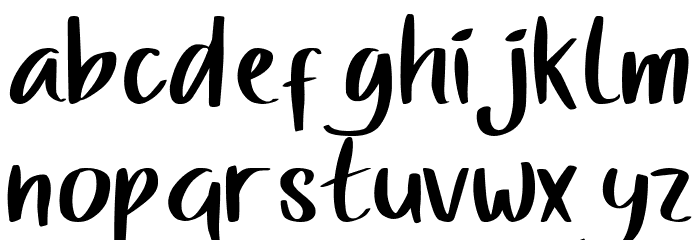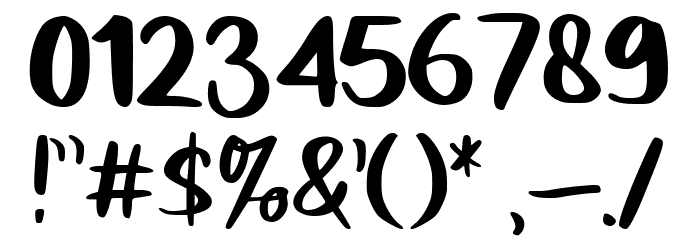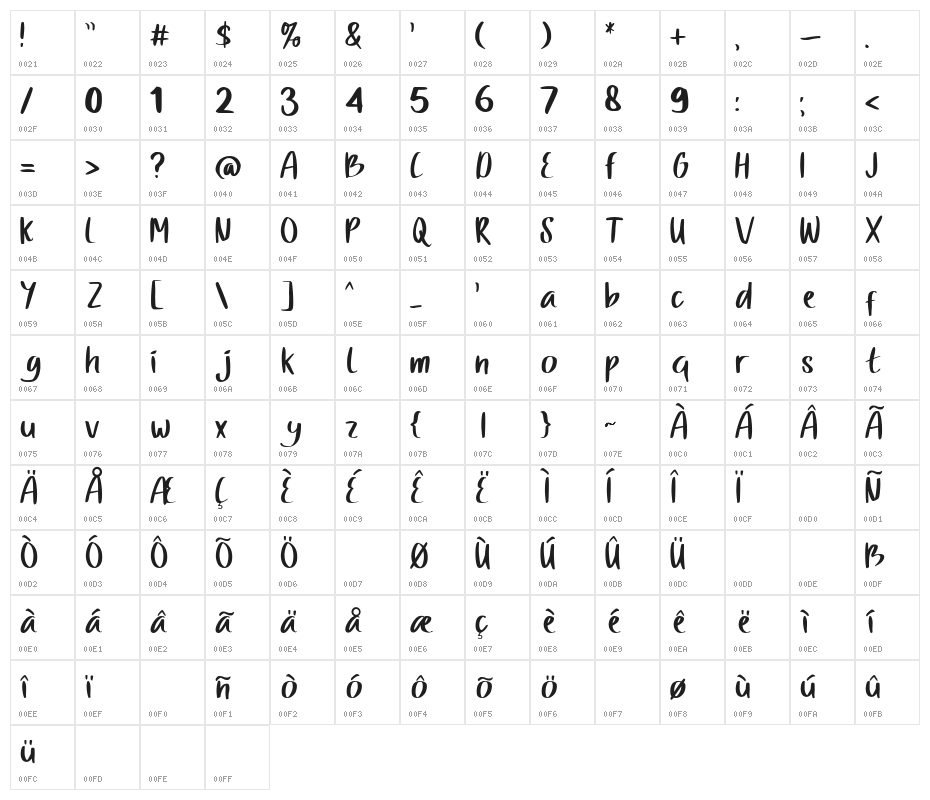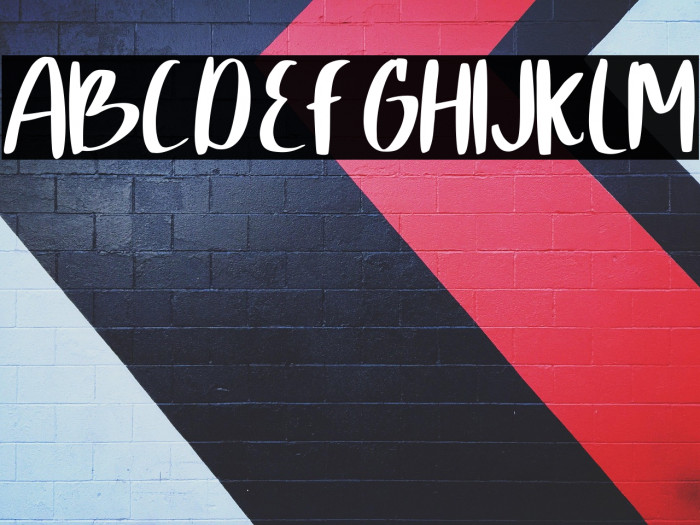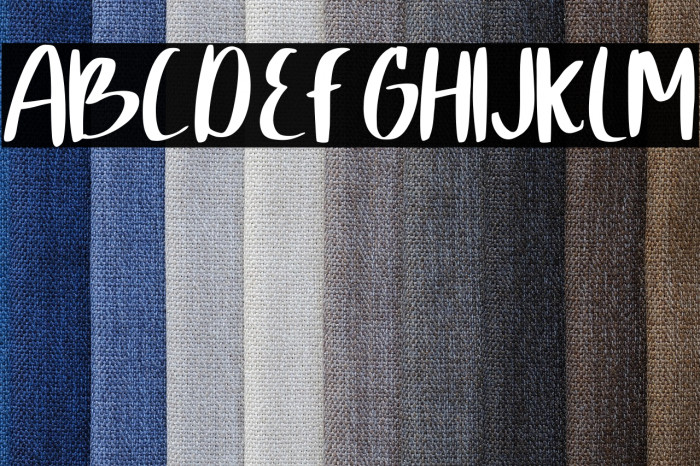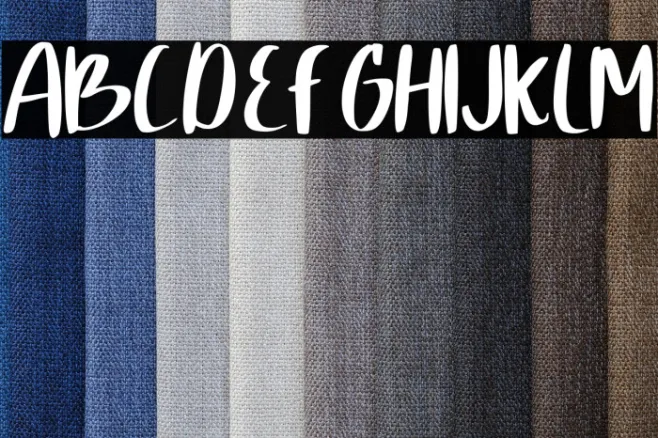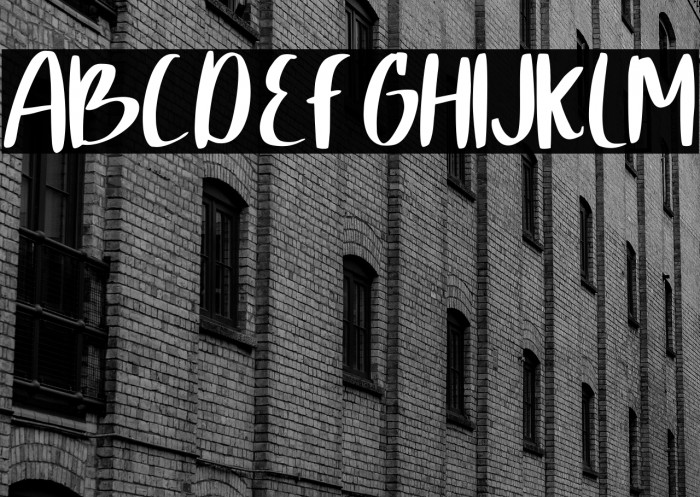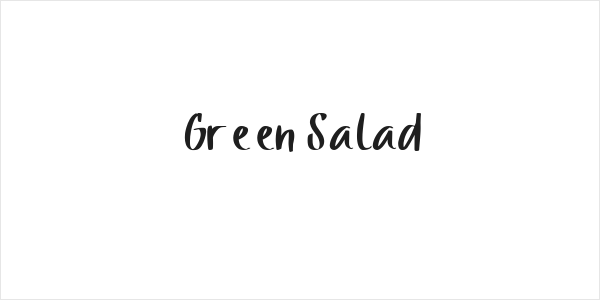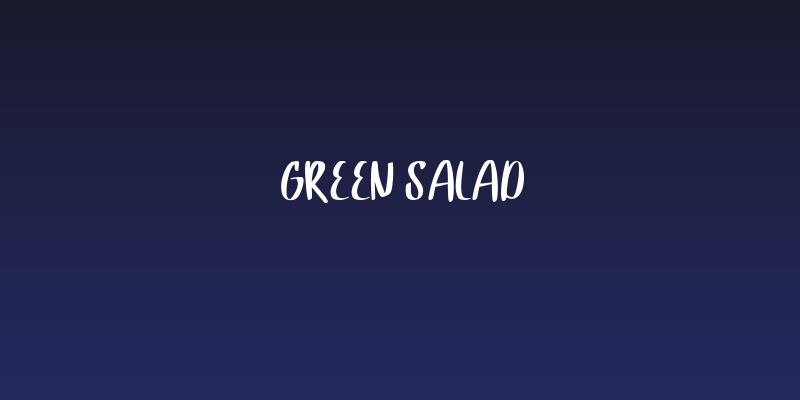
Green Salad Font
This font features a lively and energetic handwritten style, characterized by its bold and playful strokes. The letters have a casual, yet artistic flair, with varying thickness that adds a dynamic feel to the text. The uppercase letters are tall and slightly narrow, while the lowercase letters maintain a consistent flow with rounded edges. Numbers and special characters follow the same expressive style, making the font versatile for various creative applications. Its informal and friendly appearance makes it ideal for projects that require a personal touch.
A bold, playful handwritten font with dynamic strokes and a casual flair.
- Font: Green Salad
- Proposed Projects: Ideal for greeting cards, invitations, posters, and social media graphics.